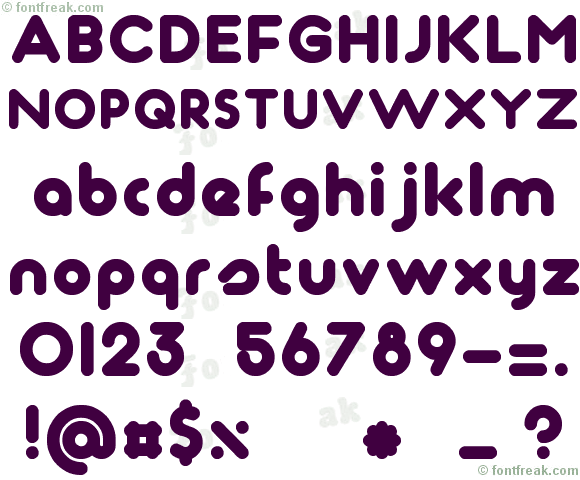
Maagkramp
Maagkramp, designed by Salvo Nicolosi, is a striking display font that captures attention with its playful yet bold personality. This typeface falls into the category of decorative fonts, characterized by its unique letterforms that blend whimsy with readability. The stroke weight is consistent, offering a sturdy appearance that makes it suitable for various applications. The rounded edges and slight contrast in the letters contribute to an inviting aesthetic, while the generous spacing ensures clarity and legibility even at smaller sizes.
The best use cases for Maagkramp are numerous, making it a versatile choice for graphic designers and content creators. Its distinctive style is perfect for wedding invitations that seek a modern twist, movie posters aiming for a fun and engaging look, or even restaurant menus that want to convey a casual dining experience. Additionally, this font can elevate branding materials, such as logos and promotional flyers, by adding a touch of creativity that stands out in a crowded marketplace.
Targeting small business owners, event planners, and graphic designers, Maagkramp offers a refreshing alternative to more traditional typefaces. The font's unique characteristics make it an excellent choice for projects that aim to communicate personality and flair.
What truly sets the Maagkramp font apart is its ability to balance playfulness with professionalism, making it suitable for both casual and formal contexts. The Maagkramp font free download opens up possibilities for users looking to enhance their design projects without the constraints of a premium font. Whether you're crafting a memorable event invitation or designing eye-catching marketing materials, Maagkramp is a font that delivers both style and functionality.